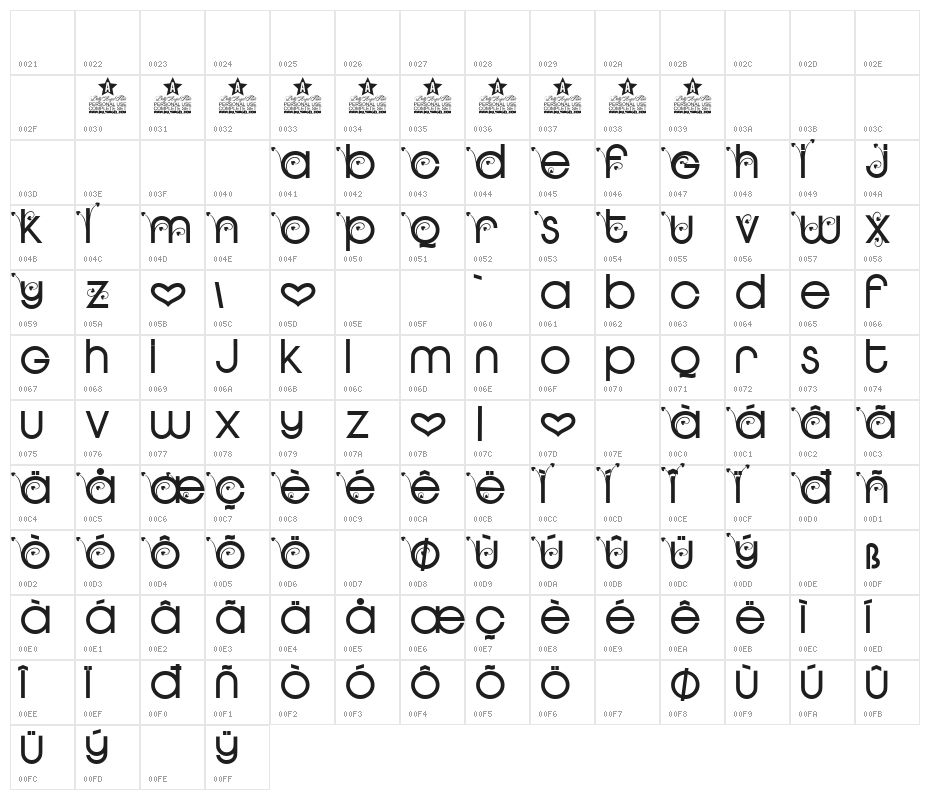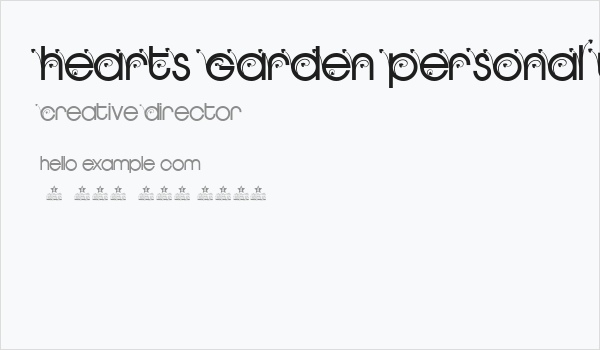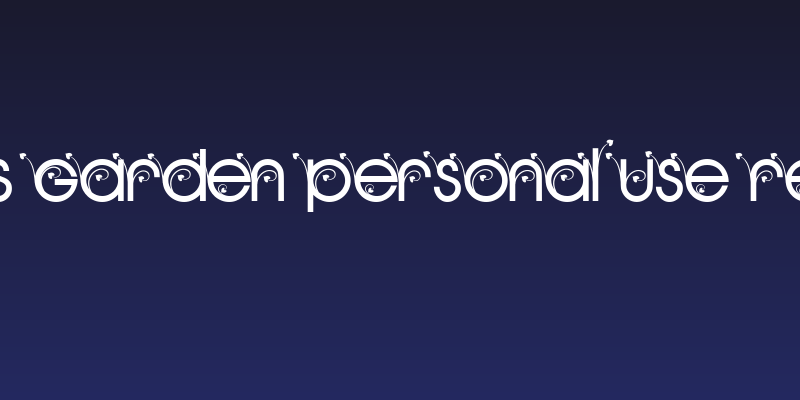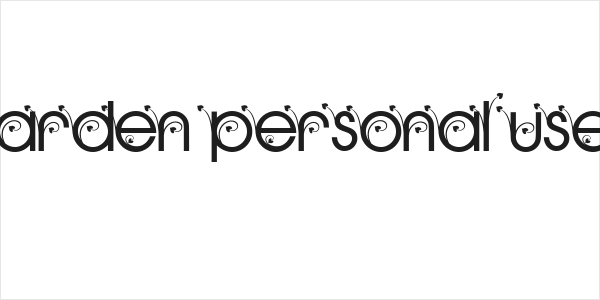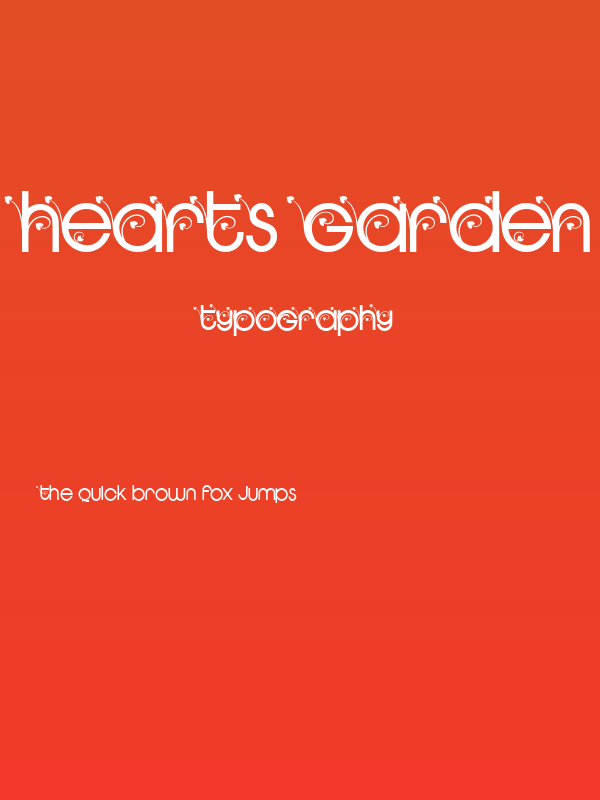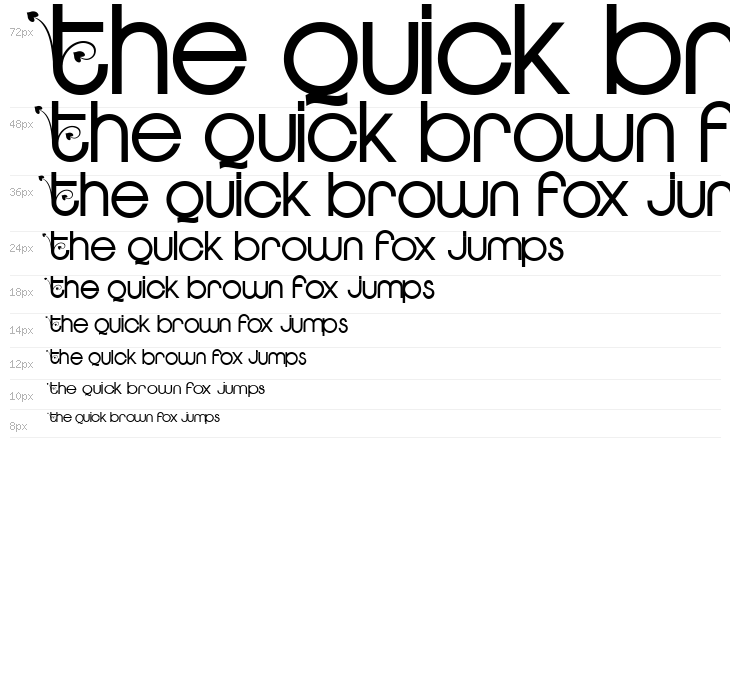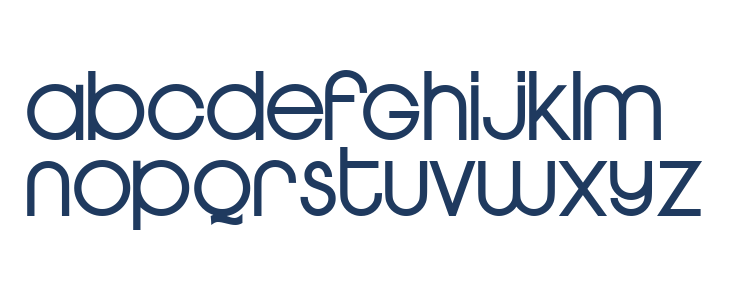
HEARTS GARDEN PERSONAL USE Regular Font
HEARTS GARDEN PERSONAL USE Regular Description
This font features a unique decorative style with playful elements incorporated into the letterforms. The lowercase letters are adorned with small heart-like embellishments, adding a whimsical touch. The overall design is bold and eye-catching, making it suitable for creative projects that require a fun and lively aesthetic. The characters are well-balanced with consistent stroke widths, providing a harmonious appearance. The font maintains a modern feel while incorporating decorative elements that make it stand out.